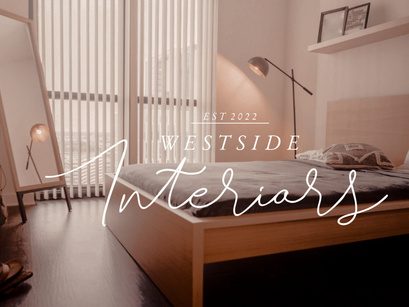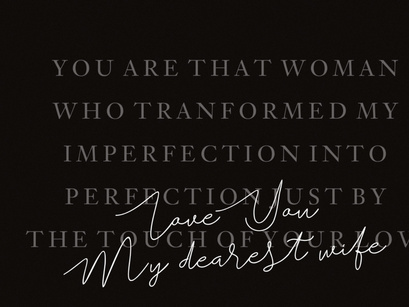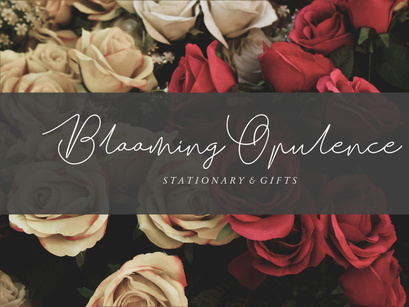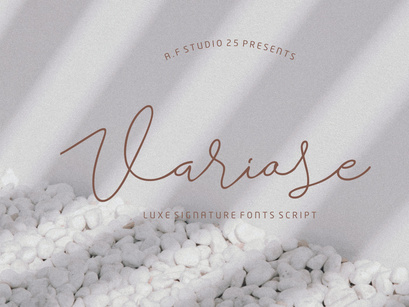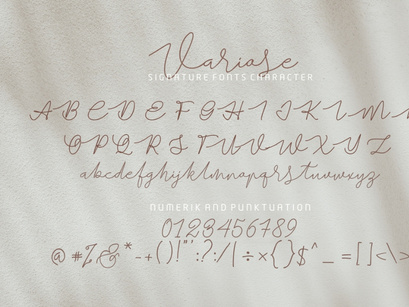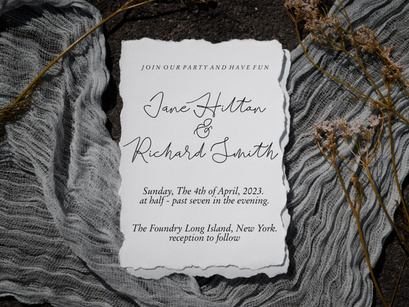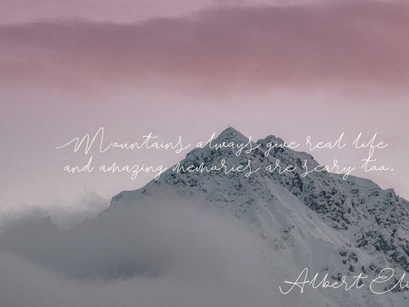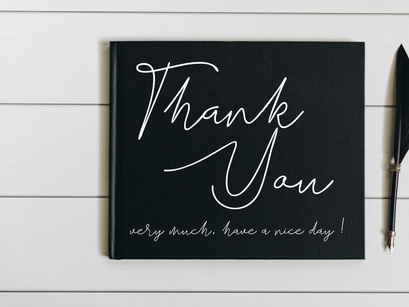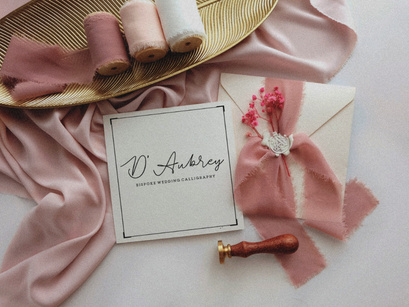
Variose - Luxe Signature Font ScriptPremium
Variose - Luxe Signature Font Script
Variose is an elegant signature font with with a touch of handwriting style. This font is perfect for Wedding font, Fashion font, Invitation font, t-shirts font, websites font, Business font, Quotes font, headline font, branding font, advertising font, Signature Font, Social Media Font, Stationary Font, Product Packaging Font, Label Fonts, Photography signature, event font, poster font, party font, and various print and digital media with stylish touch.
Variose includes full set of beautifull hand lettered uppercase and lowercase letters, numerals, and punctuation.